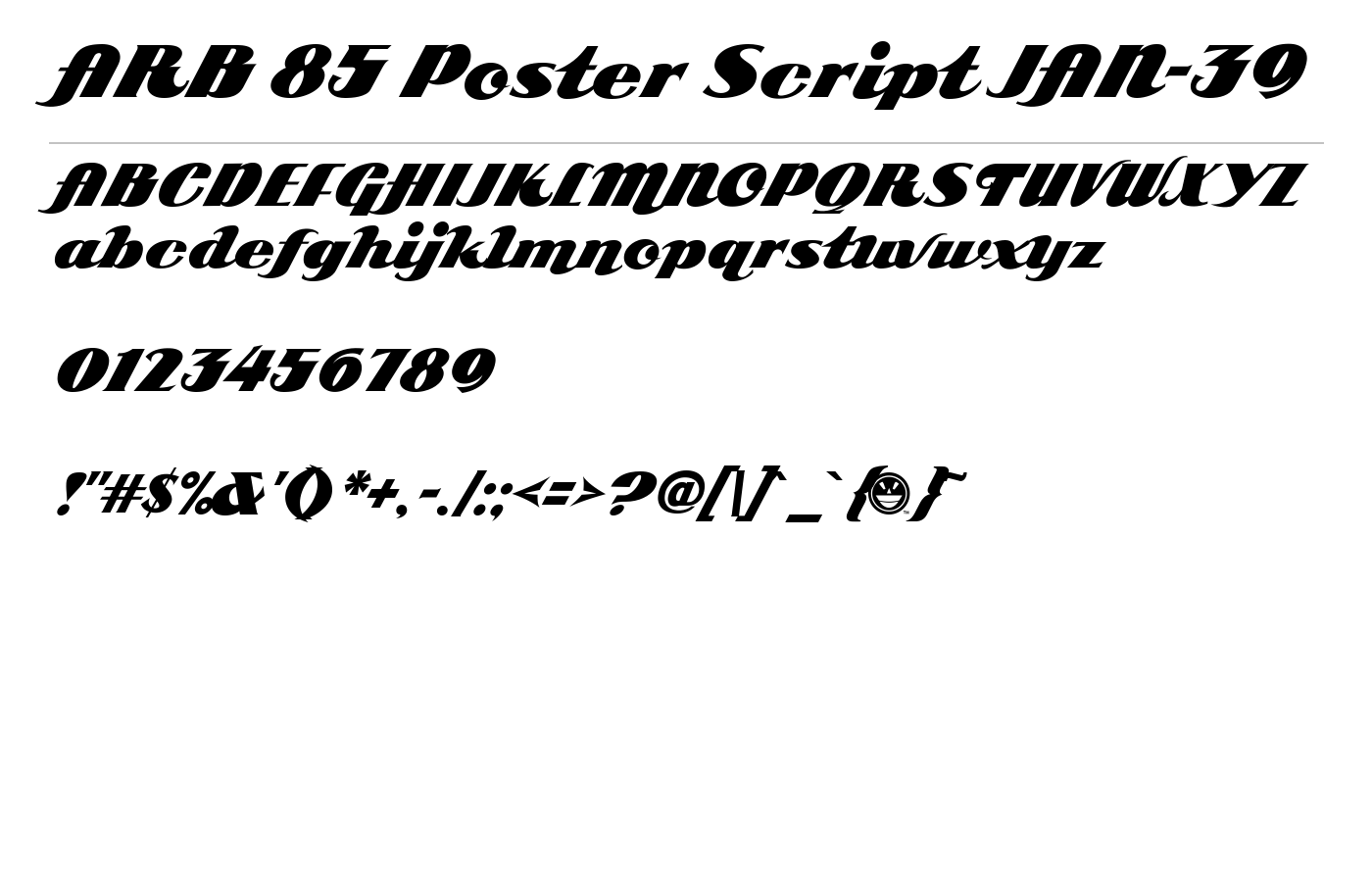
ARB 85 Poster Script JAN-39 is a bold, italicized script font with a strong, vintage poster vibe. Its heavy weight and dynamic slant create a sense of movement and energy, while the thick, smooth strokes and stylized letterforms convey a dramatic, eye-catching personality perfect for headlines, logos, and retro-inspired designs. This font works well in contexts that demand boldness and flair, such as advertising, packaging, or fashion branding, where a distinctive and confident look is essential.
ARB 85 Poster Script JAN-39 Font
About ARB 85 Poster Script JAN-39 Font
| Font family | ARB 85 Poster Script JAN-39 Font |